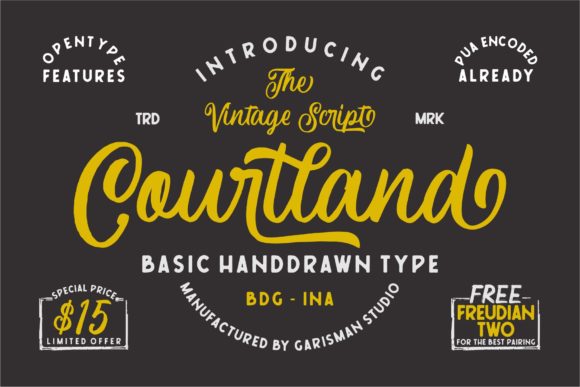
**Introducing Courtland Font: The Ultimate Expression of Retro Chic**
Step into a world of timeless elegance with Courtland Font, the script font that captures the essence of vintage charm. Inspired by the rugged yet breathtaking landscapes of Canada, this captivating font exudes a bold and nostalgic spirit.
Indulge in the beauty of Courtland's carefully crafted curves, reminiscent of hand-painted street signs from a bygone era. Its unique character will instantly add a touch of retro sophistication to any design project.
But Courtland is more than just a pretty face. It comes hand-in-hand with the alluring Freudian font, an enchanting companion that perfectly complements Courtland's style. Together, they form an irresistible duo, ready to elevate your designs to new heights.
Whether you're designing logos, posters, or packaging for a business with a vintage flair, or simply adding a touch of nostalgia to your personal projects, Courtland Font is the perfect choice. Its versatility knows no bounds, making it a must-have for any designer's toolkit.
**Here's why Courtland Font is the perfect choice for you:**
* **Nostalgic Charm:** Embrace the retro spirit and evoke a sense of longing for the good old days.
* **Bold and Eye-Catching:** Make a statement with Courtland's unique and unforgettable character.
* **Versatile and Multipurpose:** Design with endless possibilities, from street signs to wedding invitations and everything in between.
* **Perfect Pairing:** Experience the harmonious fusion of Courtland and Freudian fonts, creating a captivating visual symphony.